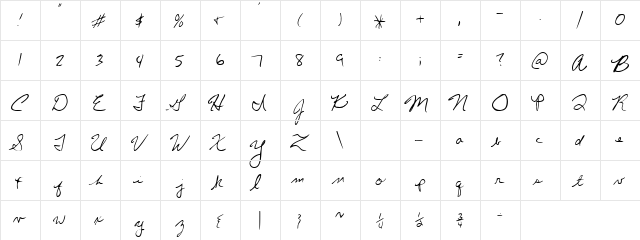
Chris's Handwriting Regular
Design Context for Chris's Handwriting Typeface
Chris's Handwriting brings a calligraphic fluidity to the page — its connecting strokes and expressive curves give it an unmistakably human quality.
Font Pairing: Combine Chris's Handwriting with a simple geometric sans for maximum contrast — the tension between flowing curves and clean structure is a classic typographic pairing.
Pro Tip: Pair Chris's Handwriting with a clean sans-serif for supporting text. The contrast between fluid script and geometric structure creates an elegant typographic hierarchy.